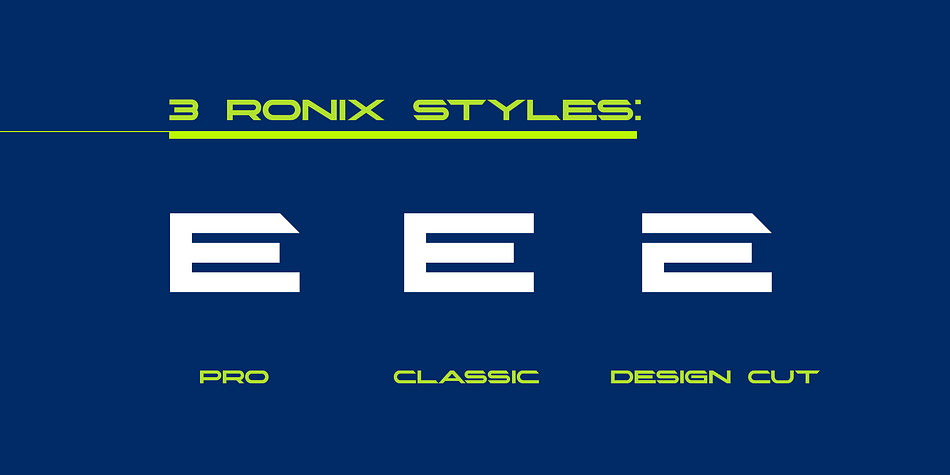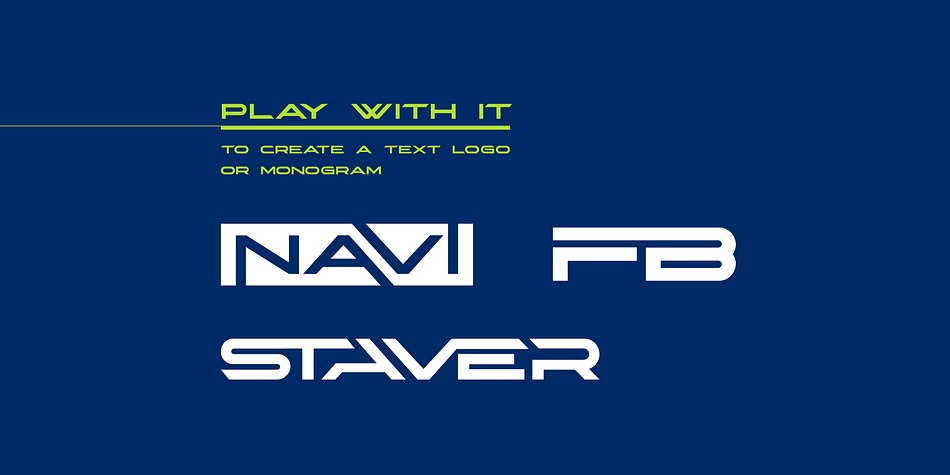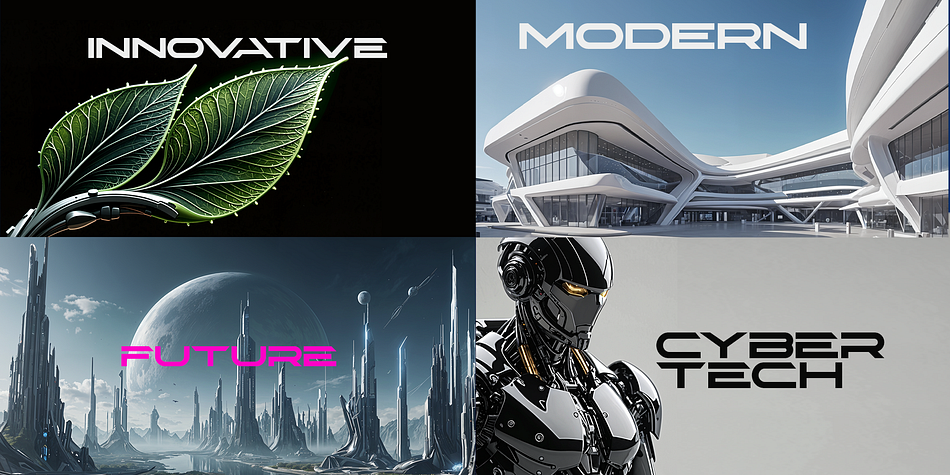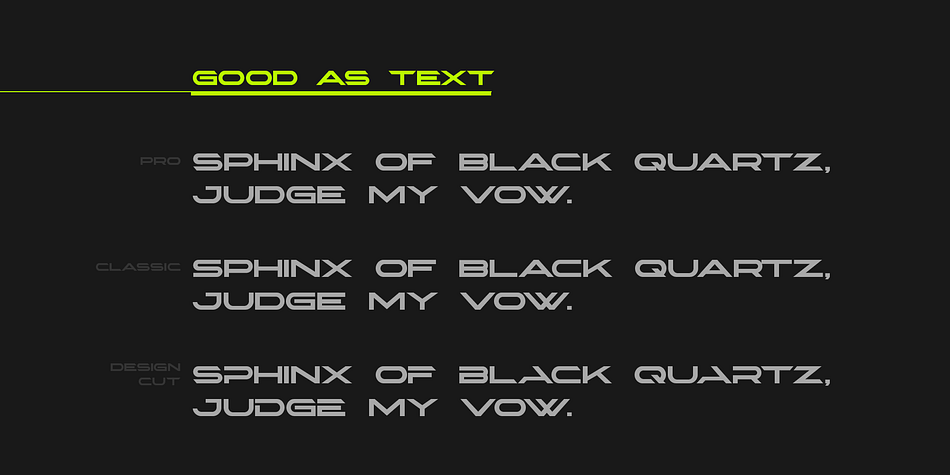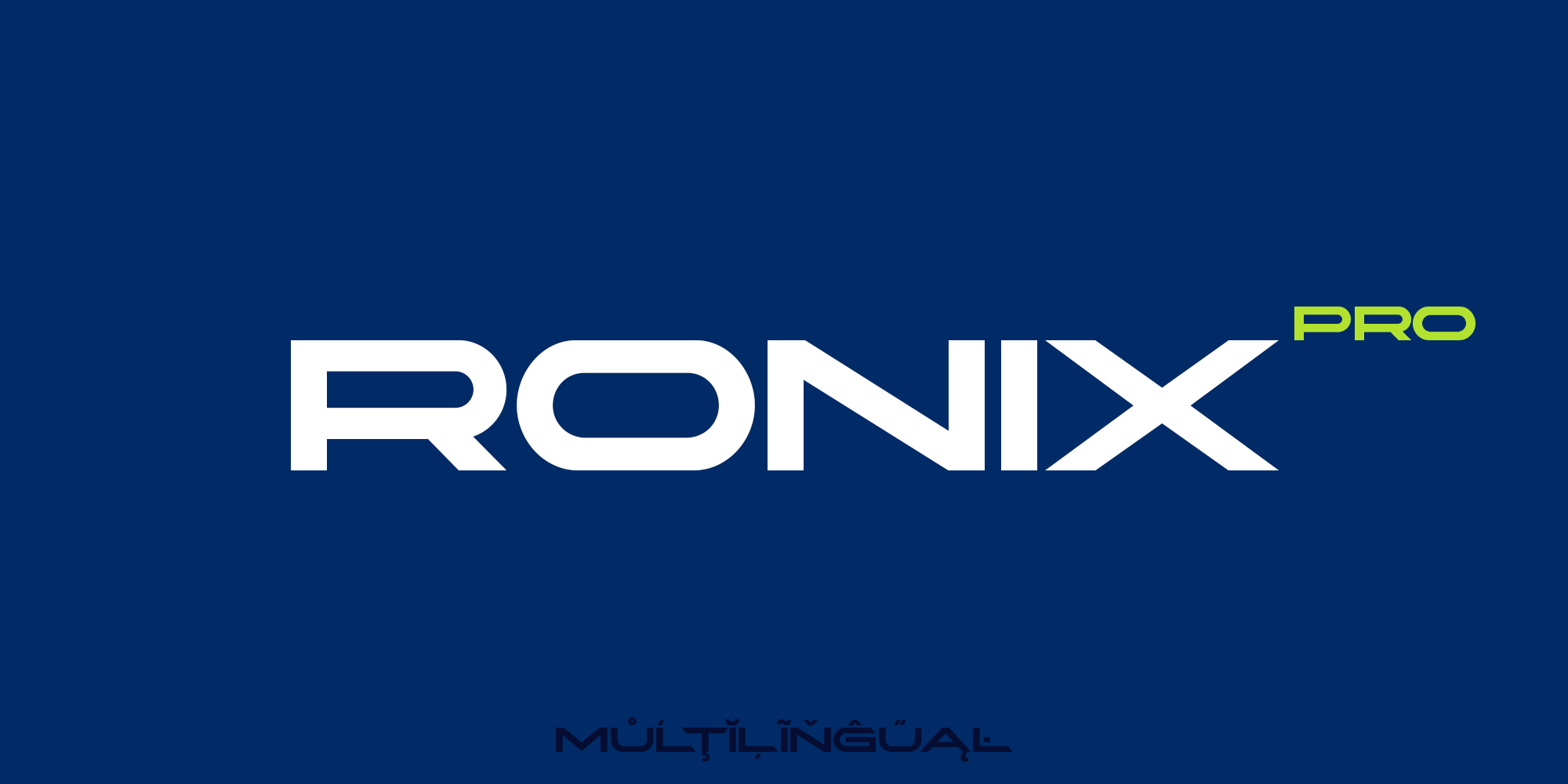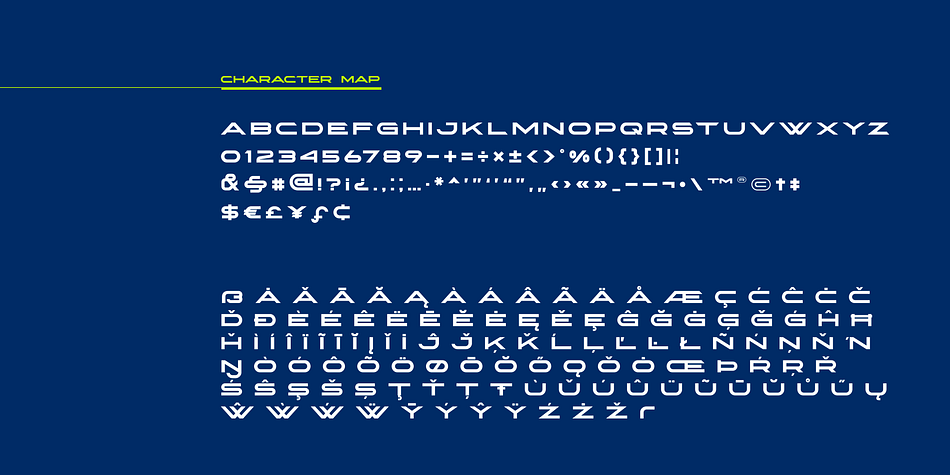
RONIX
Ronix is a display sans font family. This typeface has three styles and was published by Sentavio.
RONIX font creates modern authentic futuristic hi-tech atmosphere and style.
It is good looking as header and as text both. Use it in your projects in such areas as robots & androids, hi-tech, future, virtual reality, space, sport and many others.